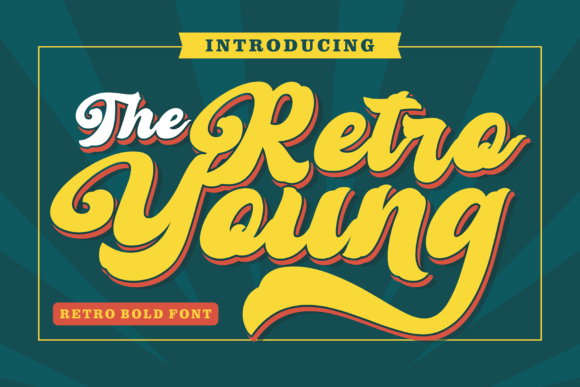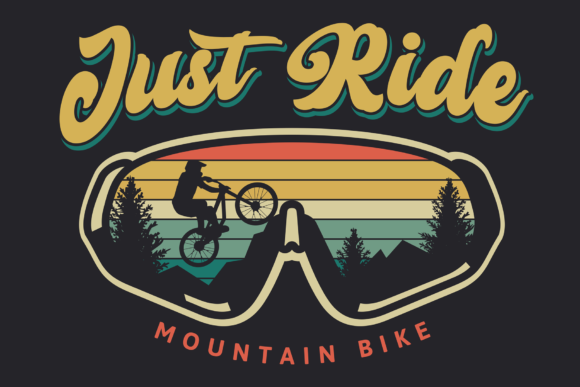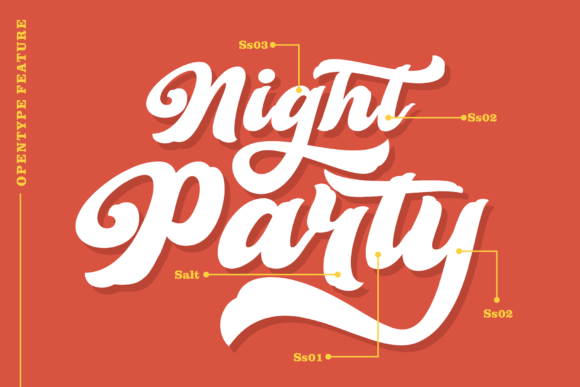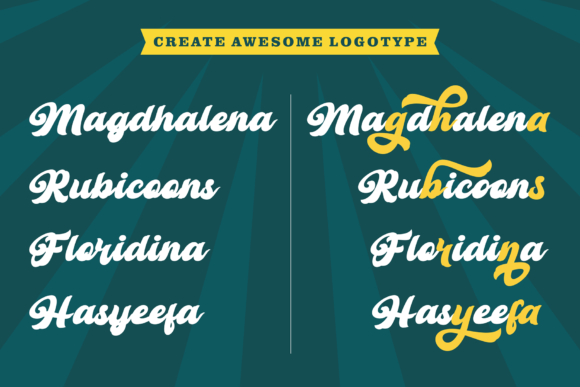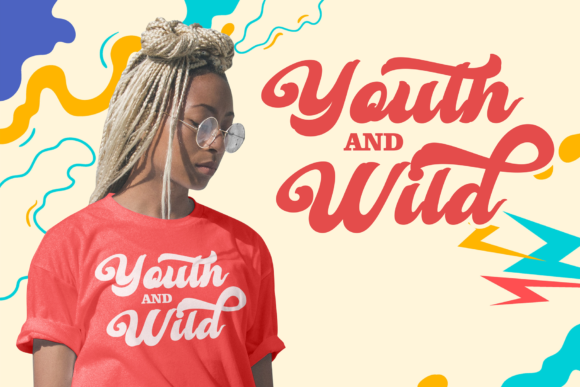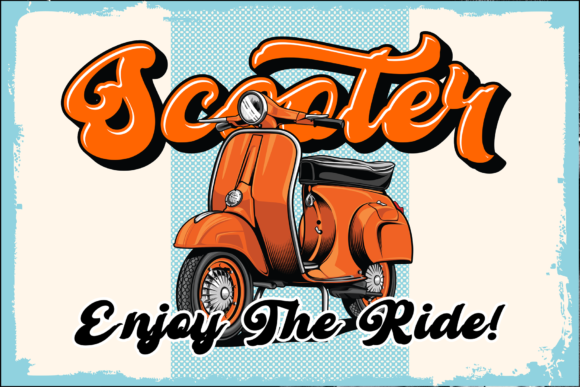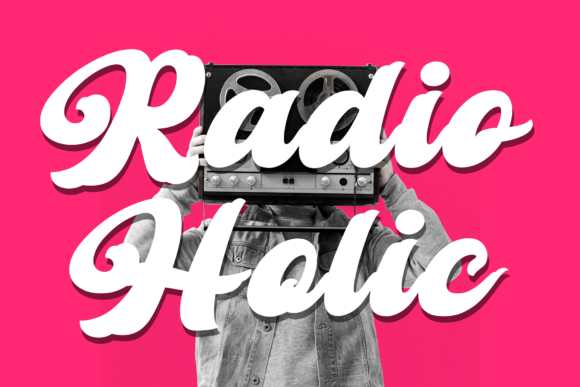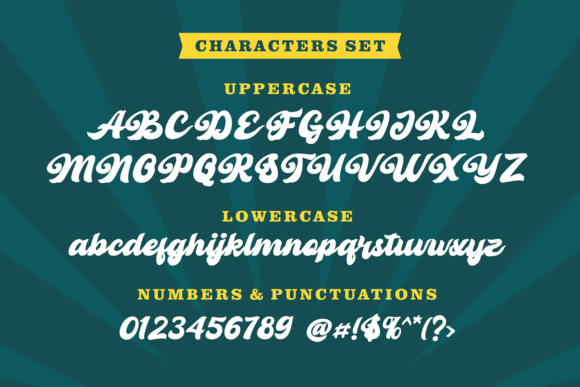
Retro Young Font
About Retro Young Font
Retro Young is a bold and retro-styled handwritten font that brings a touch of nostalgia and character to your designs. With its strong and confident appearance, this font is perfect for headlines, logotypes, and other projects where you want to make a bold statement.
The retro vibe of Retro Young adds a sense of vintage charm and personality to your designs. Whether you’re working on posters, advertisements, branding materials, or any other project that requires a touch of nostalgia, this font is sure to capture attention and create a memorable impact.
One of the standout features of Retro Young is its extensive set of glyphs and swashes, which are conveniently accessible through PUA encoding. This allows you to easily access the various alternates, ligatures, and decorative elements that make this font truly unique. With these additional design options, you can further customize and enhance your typographic compositions.
The stylish and dynamic nature of Retro Young gives it a versatile quality, allowing it to be used in a variety of design contexts. Whether you’re going for a retro-inspired theme, a bold and energetic look, or even a playful and fun atmosphere, Retro Young can adapt to suit your creative vision.
By incorporating Retro Young into your designs, you can evoke a sense of nostalgia while adding a contemporary twist. Its bold and confident strokes create a visually striking appearance that is sure to make a lasting impression on your audience.
In summary, Retro Young is a retro-styled and bold handwritten font that brings a strong and confident vibe to your designs. With its nostalgic character, extensive glyph set, and PUA encoding, you have the freedom to create unique and visually captivating typographic compositions. Let Retro Young add a touch of retro charm and personality to your projects.